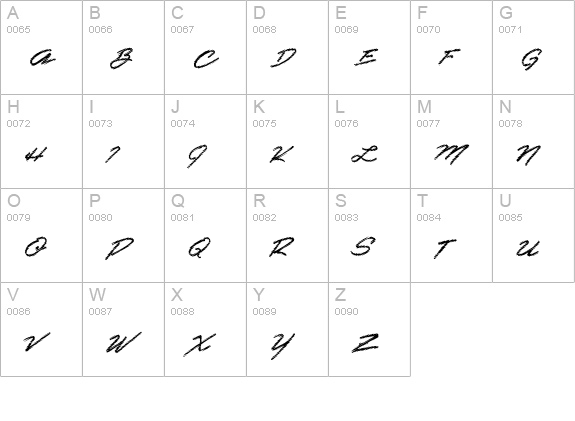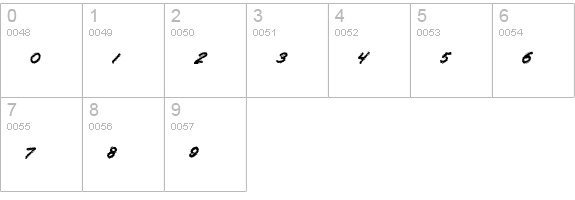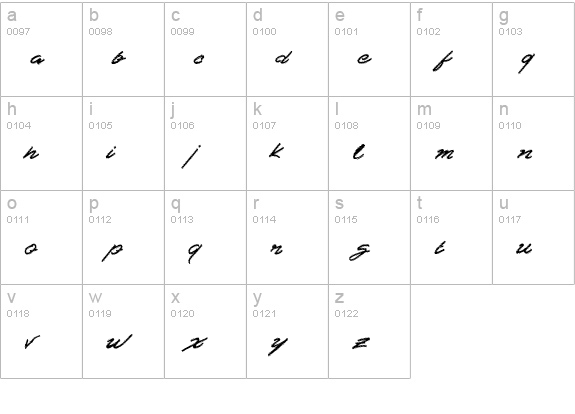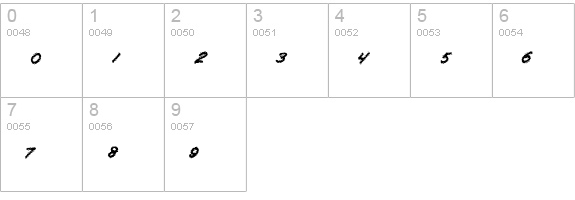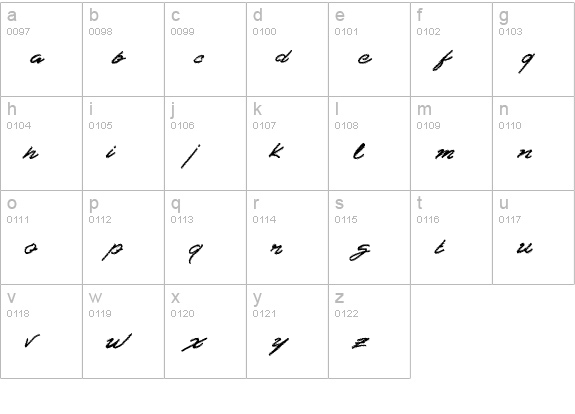
Shredder Font Details
Introducing the magnificent Shredder font, a true masterpiece of typography that will leave you in awe. With its sharp edges and bold strokes, this font exudes power and confidence, making it the perfect choice for any design project that demands attention. Shredder font is a free font that is designed to captivate and inspire. Its unique style sets it apart from the crowd, making it a standout choice for logos, headlines, and other eye-catching elements. Whether you're creating a poster, a website, or a branding campaign, Shredder font will ensure that your message is delivered with maximum impact. What sets Shredder font apart is not only its stunning aesthetics, but also its versatility. It can effortlessly adapt to any design concept, whether it be modern, edgy, or even retro. Its clean and crisp lines make it readable at any size, ensuring that your message is clearly communicated to your audience. The best part? Shredder font is freely available to download at FontsMarket.com. That's right, you can add this incredible font to your collection without spending a dime. Just visit FontsMarket.com and unleash your creativity with the power of Shredder font. So, if you're looking to make a bold statement with your designs, look no further than Shredder font. Its striking presence and free availability make it an unbeatable choice. Download Shredder font today and let your creativity soar to new heights.